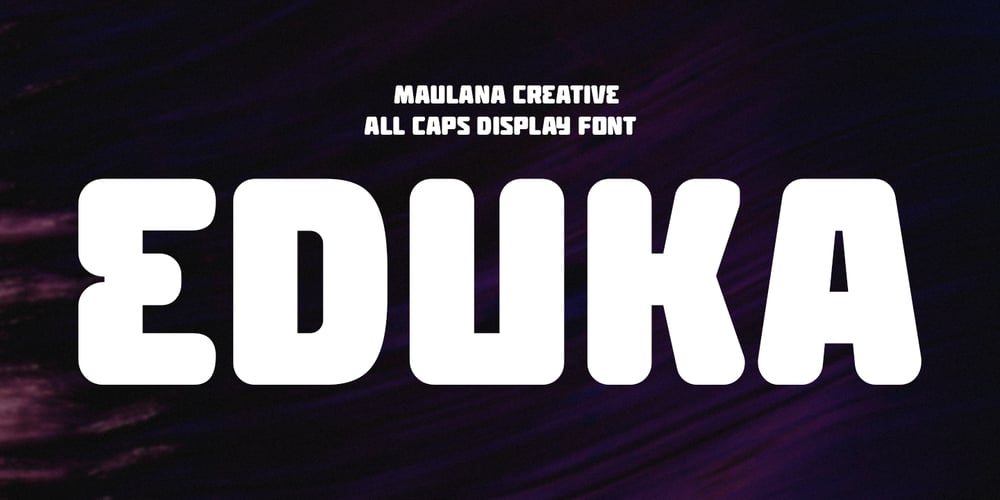
MC Eduka
MC Eduka font
MC Eduka Font Family was designed by Gilang Maulana and published by Maulana Creative. MC Eduka contains 1 styles and family package options. Eduka is a squarish sound sans serif Display font. Bold stroke, fun character with a bit of ligatures and alternates. To give you an extra creative work. Eduka font support multilingual more than 100+ language. This font is good for logo design, Social media, Movie Titles, Books Titles, a short text even a long text letter and good for your secondary text font with script or serif. Make a stunning work with Eduka font. Cheers, Maulana Creative